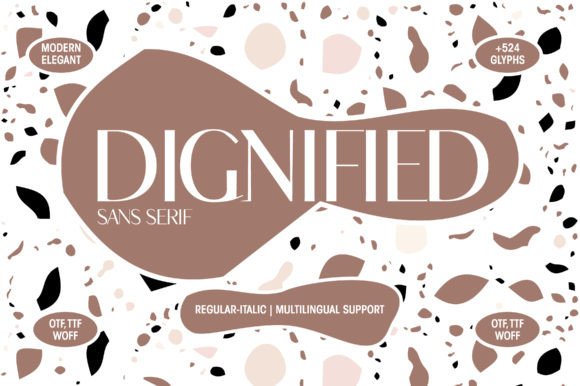
Dignified Font
Dive into the world of Dignified, an enchanting sans serif font crafted to captivate your audience and leave a lasting impression. Its minimalistic charm evokes a sense of elegance, while its readability makes it perfect for both print and digital masterpieces. Whether you're crafting elegant logos, sophisticated marketing materials, or eye-catching social media graphics, Dignified will elevate your designs to new heights. Its versatility empowers you to express your creativity and leave an indelible mark on your audience.
Unleash the power of Dignified, the font that embodies sophistication and ease. Its crisp, clean lines dance across the page, inviting your readers to engage and absorb every word. Its minimalist essence creates a timeless aesthetic that transcends trends, ensuring your designs remain captivating for years to come. Dignified is the perfect companion for those who seek to make a statement with their words, effortlessly conveying both professionalism and style.
Don't settle for ordinary fonts. Embrace Dignified, the font that transforms your designs into works of art. Its enchanting presence adds a touch of magic to every project, captivating your audience with its understated elegance. Experience the joy of effortless readability, knowing that your message will be received loud and clear. Let Dignified be your secret weapon, empowering you to communicate with impact and leave an unforgettable impression.